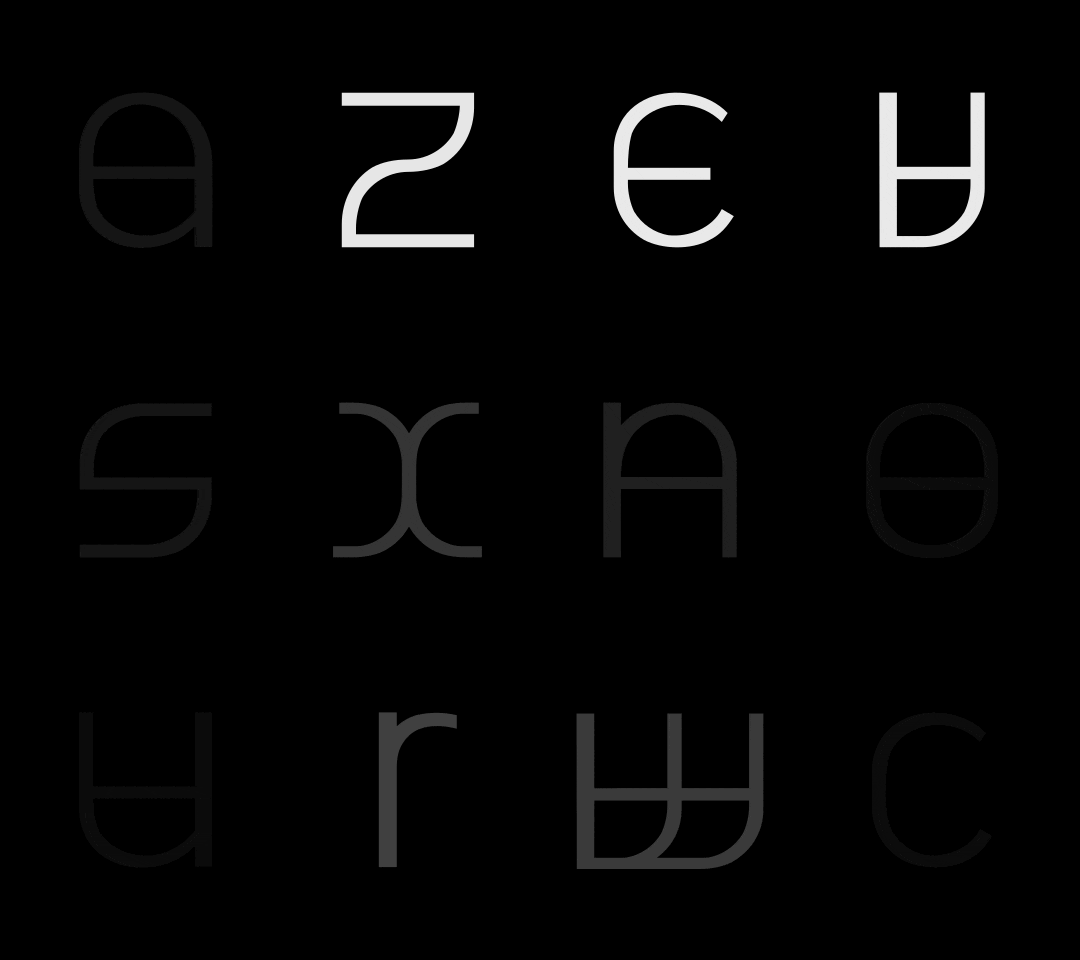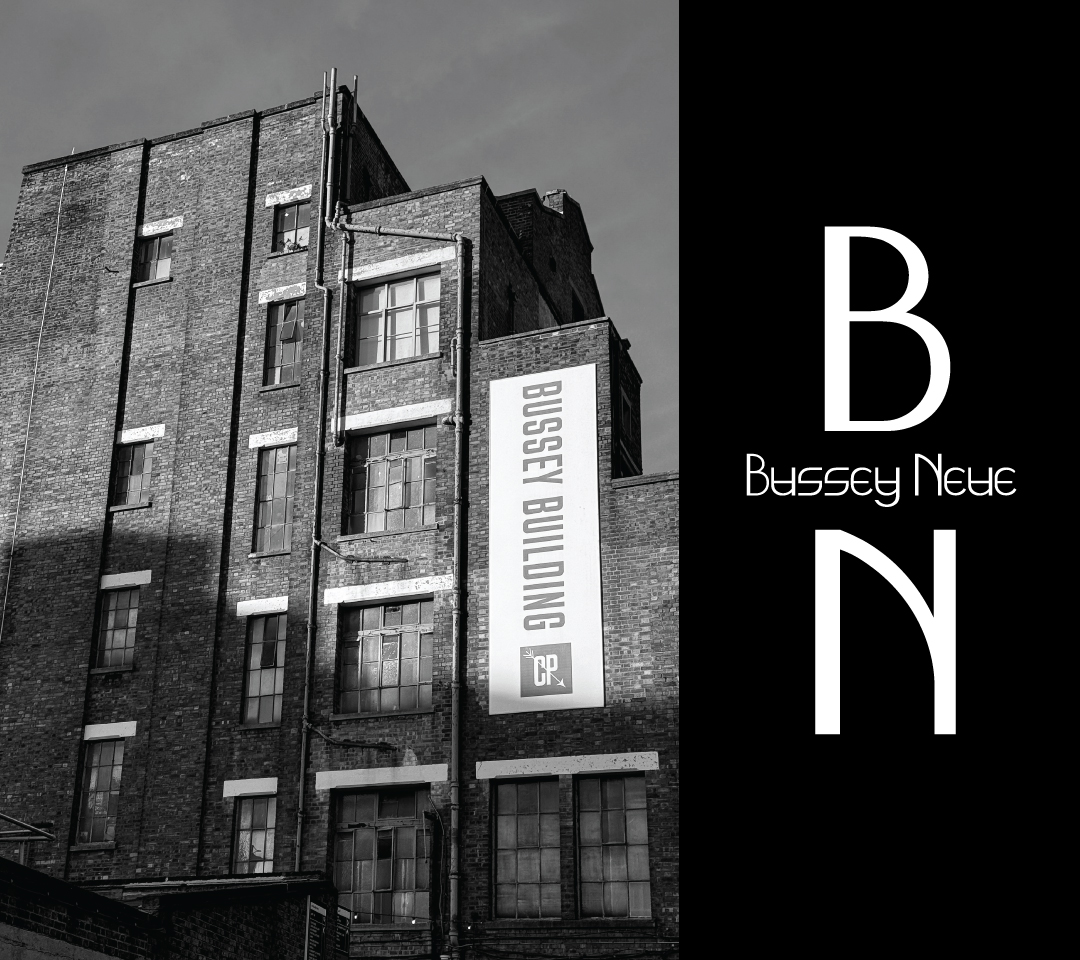
Bussey Neue is a sans serif typeface inspired by the Bussey Building in Copeland Park, Peckham. Rooted in the disciplined geometry of Victorian industrial architecture, it translates the site's construction logic into letterforms. The base unit is a window, used as a simple frame into Victorian construction, while deliberately avoiding the era's ornamental typographic flourish. Each glyph is built from a small set of repeatable modules, reflecting the efficiency of factory making and the building's modular fabric. The forms draw on robust load bearing structures, the soft curvature of arched windows, and reinforcing details suggested by grid based fenestration.